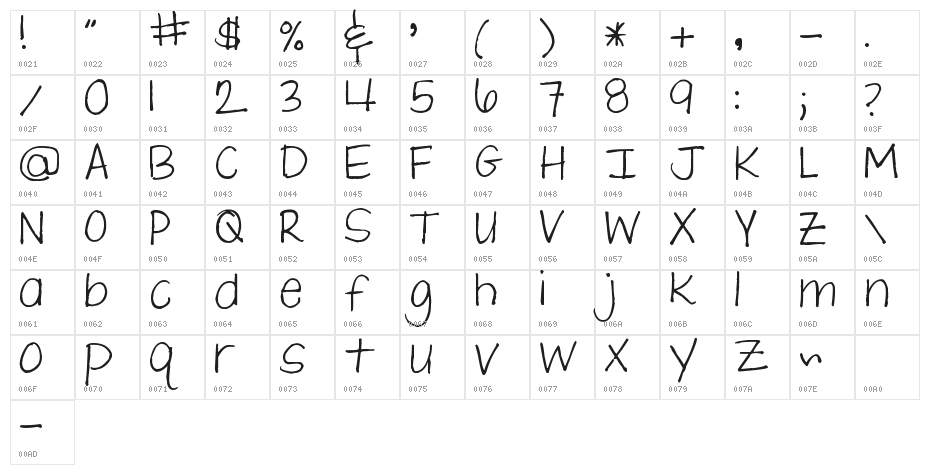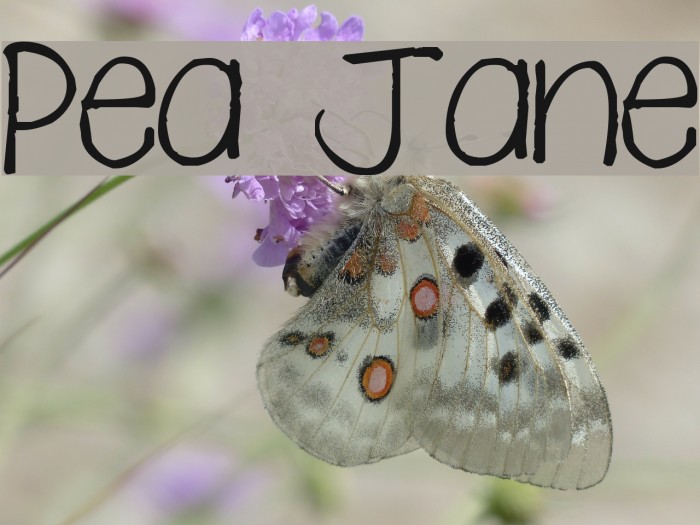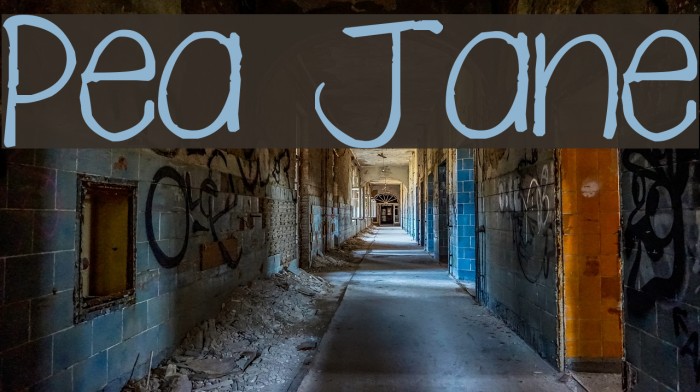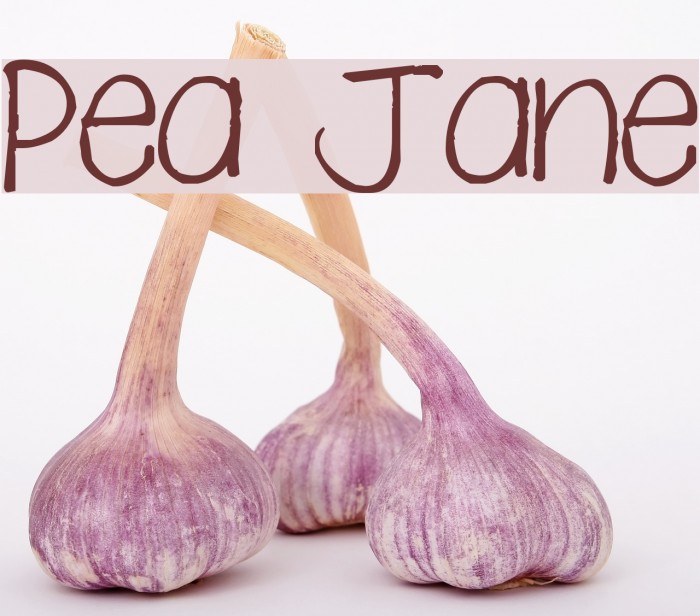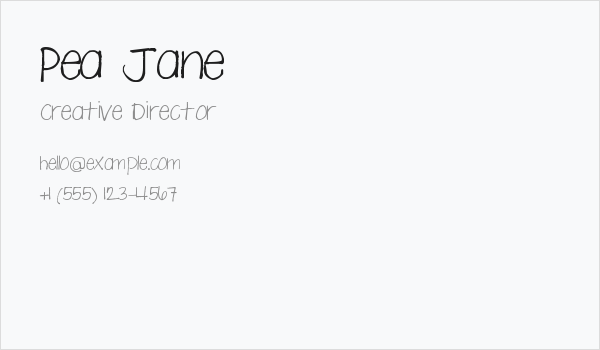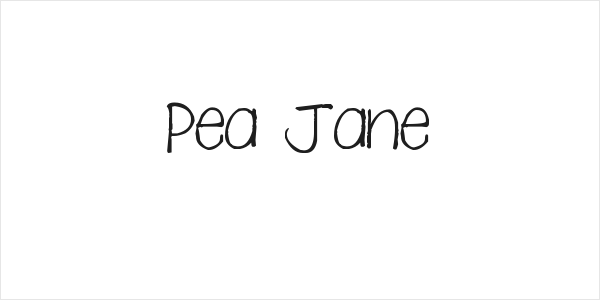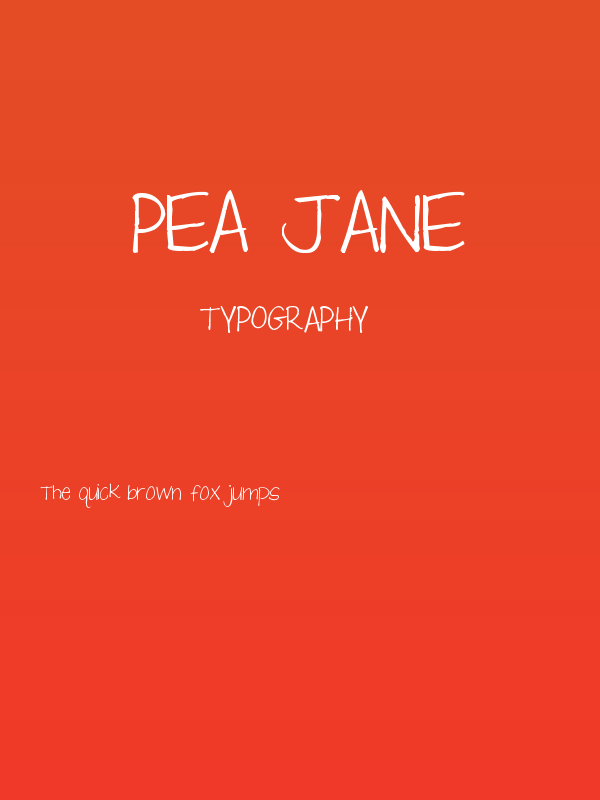
Pea Jane Font
Pea Jane Description
This font exudes a playful and casual handwritten style, characterized by its irregular strokes and slightly uneven baseline. The letters have a whimsical, personal touch, reminiscent of a friendly note or a casual journal entry. The uppercase and lowercase letters maintain a consistent style, with rounded edges and a slight slant that adds to the informal feel. The numerals and special characters are crafted with the same playful aesthetic, ensuring a cohesive look across all text elements. This font is perfect for projects that require a touch of personality and warmth.
| Use Case | Headlines, Informal text, Personal projects |
| Proposed Projects | Ideal for greeting cards, personal blogs, children's books, and informal branding. |